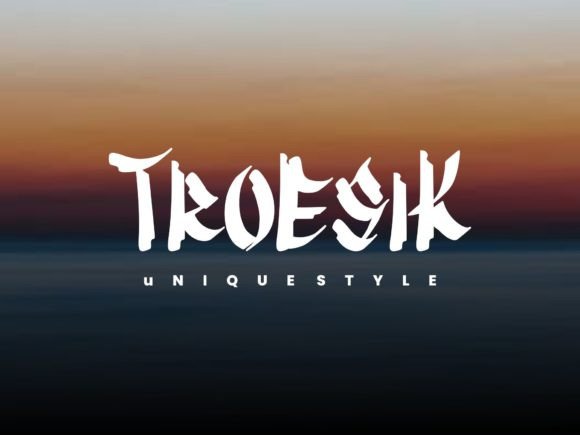
Embark on a creative adventure with Troesik Font, where urban flair meets artistic expression. This captivating display font exudes a raw and rugged charm, perfect for injecting a touch of street-style edginess into your designs.
Unleash your imagination and let Troesik's graffiti-inspired strokes dance across your creations. Elevate your designs to new heights with this bold and distinctive font that commands attention. Troesik is not just a font; it's a gateway to a world of limitless possibilities.
Whether you're crafting custom tattoos, streetwear designs, or captivating posters, Troesik's urban pulse will amplify your message. Its edgy character adds a rebellious spirit to your projects, making them stand out from the crowd.
Immerse yourself in the world of street art and let Troesik's vibrant energy ignite your creativity. From bold headlines to eye-catching logos, this font empowers you to make a statement that resonates with the urban heartbeat.
Troesik Font is more than just a collection of letters; it's a canvas for your imagination. Its unique style captivates audiences, inviting them to engage with your creations on a deeper level. So, embrace the urban revolution and let Troesik Font guide your designs towards uncharted territories.